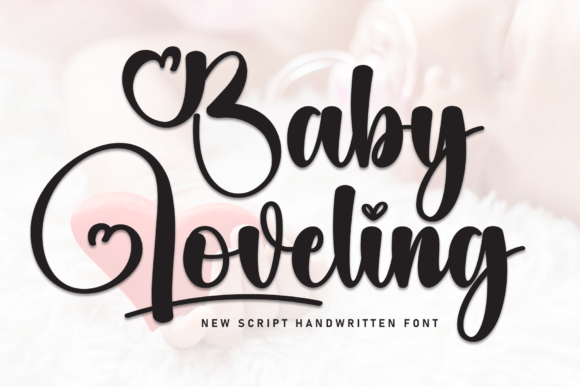
Discover the Sweet Charm of Baby Loveling Font
Have you ever found yourself doodling in a notebook, letting your pen wander across the page as you try to capture the essence of a particular feeling or idea? That’s exactly where the magic of typography begins – in the imperfect, handwritten strokes that bring words to life. For designers seeking to add a touch of warmth and personality to their projects, Baby Loveling Font is the perfect companion.
This sweet and friendly handwritten font is designed to evoke a sense of natural charm, making it incredibly versatile and suitable for a wide range of designs. Whether you’re working on a children’s book, a wedding invitation, or a social media campaign, Baby Loveling Font is the perfect tool to help you express your creativity and connect with your audience. With its unique style and endless possibilities, Baby Loveling Font is a valuable addition to any designer’s toolkit.
Baby Loveling Font Key Features
- Unique Characteristics: Baby Loveling Font features a hand-drawn design with intricate details and a playful touch, making it perfect for baby-related products, children’s books, and nursery decor.
- Font Styles: The font includes 6 different font styles: Regular, Italic, Bold, Bold Italic, Outline, and Shadow, providing versatility and flexibility for designers.
Baby Loveling Font Review
I’ve worked with a lot of fonts in my career, and I’ve got to say that Baby Loveling is a unique one. ✨ Its playful and whimsical feel makes it perfect for children’s books, nursery decorations, or any project that needs a touch of innocence and charm. The font’s rounded edges and soft curves add a sense of warmth and friendliness, which is exactly what you want when designing for young audiences.
However, I do have a few reservations. ⚠️ The font’s irregularities can sometimes make it difficult to read, especially in smaller sizes. Additionally, the font’s limited character set means that you may not be able to use it for more complex text-based projects. I also noticed that the font’s style can get a bit too cutesy for some tastes, which may not be suitable for all design projects.
Overall, I think Baby Loveling is a great choice for designers who want to add a touch of playfulness to their projects. While it may not be the most versatile font, its unique charm and character make it a standout in the right context.
Pros:
- Playful and whimsical feel
- Perfect for children’s projects
- Rounded edges and soft curves add warmth and friendliness
Cons:
- Irregularities can make it difficult to read in smaller sizes
- Limited character set
- Can get too cutesy for some tastes
Practical Application Guide for Baby Loveling Font
Tips for Getting the Most Out of Baby Loveling Font
To get the most out of Baby Loveling Font, try:
- Pairing it with bold or italic styles for emphasis
- Using it in combination with other fonts for a unique look
- Adjusting the font size and color to suit your design
Common Use Cases for Baby Loveling Font
Baby Loveling Font is commonly used for:
- Baby and children’s product designs
Project 1: Custom Baby Shower Invitations
Create adorable baby shower invitations featuring the Baby Loveling Font. This font’s playful, cursive style is perfect for conveying a sense of joy and celebration.
Project 2: Personalized Baby Blankets
Design personalized baby blankets with the Baby Loveling Font to make a thoughtful gift for new parents. This font’s soft, elegant style is perfect for creating a cozy, nursery-inspired design.